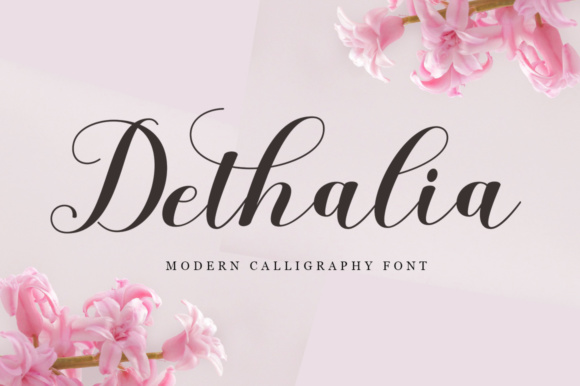
Introducing Dethaliaâ„¢ the Charming Calligraphy Unveiled:
In a world where words dance on digital canvases, there lies a font that captivates with its enchanting allure—Dethalia™: A captivating calligraphy font that echoes the heartbeat of modern artistry. Inspired by the fluidity of handwritten letters, Dethalia™ entwines the grace of traditional calligraphy with a touch of playful sophistication.
Unleash Your Creativity with Dethaliaâ„¢'s Unparalleled Versality:
From whimsical invitations to heartfelt letters, from eye-catching social media posts to captivating brand designs, Dethaliaâ„¢ adapts effortlessly to your creative vision. Its meticulously designed swashes add a touch of finesse to any project, allowing your words to flow with effortless beauty.
Dethaliaâ„¢: The Key to Unforgettable Impressions:
In a digital landscape where attention spans dwindle, Dethaliaâ„¢ stands out as a beacon of distinctiveness. Your messages will no longer be lost in the sea of homogeneity; rather, they'll be etched into the digital landscape, leaving a trail of beauty and intrigue. Embrace Dethaliaâ„¢ and watch as your words transform into works of art.
Step into a World of Endless Possibilities with Dethaliaâ„¢:
With Dethaliaâ„¢ at your fingertips, the creative horizons expand limitlesly. Design invitations that feel like warm embraces, weave social media posts that captivate with their allure, and create brand designs that exude an air of sophistication. Dethaliaâ„¢ is not just a font; it's a key to unlocking a world of storytelling, where every letter is a chapter in an unforgettable journey.
Dethaliaâ„¢: Where Elegance Meets Emotion:
More than just a collection of characters, Dethaliaâ„¢ is an embodiment of grace and eloquence. With each letter meticulously handcrafted, it's as if you're holding a piece of art in your digital hands. Each word adorned with Dethaliaâ„¢'s intricate swashes will speak to the heart, leaving an indelible mark on your audience.